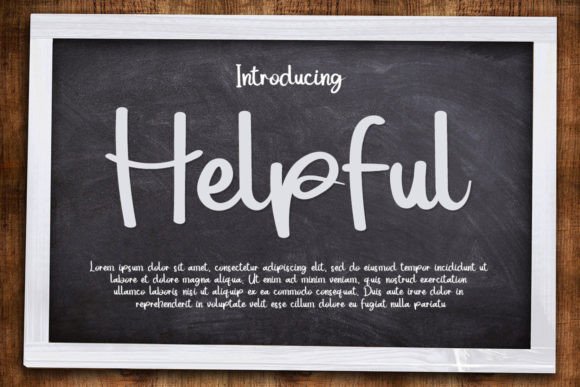
Enter the world of Helpful, an enchanting script font that will sweep you off your feet with its timeless elegance and captivating charm. This masterpiece, crafted by the talented Eddygoodboy, is a symphony of flowing strokes and graceful curves, mirroring the delicate touch of a handwritten letter.
Step into a realm of endless possibilities, where Helpful transforms your creative visions into breathtaking realities. Whether you're crafting an intimate wedding invitation, designing a luxurious brand identity, or captivating your audience with a heartfelt social media post, Helpful is your perfect companion. Its versatility knows no bounds, allowing you to craft headlines that command attention, body text that flows with effortless grace, and logos that leave an indelible mark.
With Helpful at your fingertips, you'll discover a world where every word carries a story, every design tells a tale. Its meticulously crafted characters, each a work of art in its own right, dance across the page, evoking emotions and leaving hearts aflutter.
But Helpful is more than just a font; it's an experience. Its intricate details, reminiscent of a skilled calligrapher's hand, add a touch of luxury and sophistication to every project. Allow Helpful to elevate your designs to new heights, captivating your audience and leaving them spellbound.
Don't let this opportunity pass you by. Embrace the allure of Helpful, the quintessential font for creating designs that resonate with hearts and minds. As you delve into its depths, you'll discover a font that not only meets your expectations but surpasses them, leaving you in awe of its beauty and versatility.
Helpful, the script font that speaks to your soul, awaits your touch. Unleash your creativity and immerse yourself in a world where designs flourish and dreams take flight.